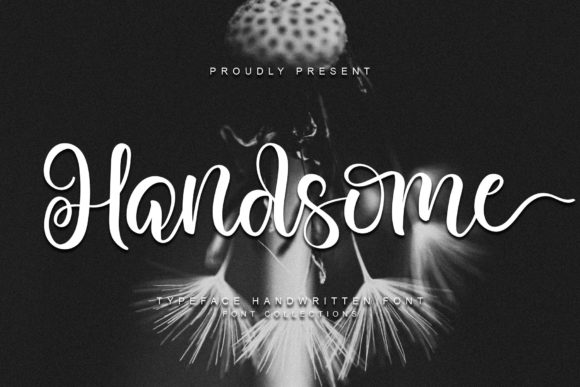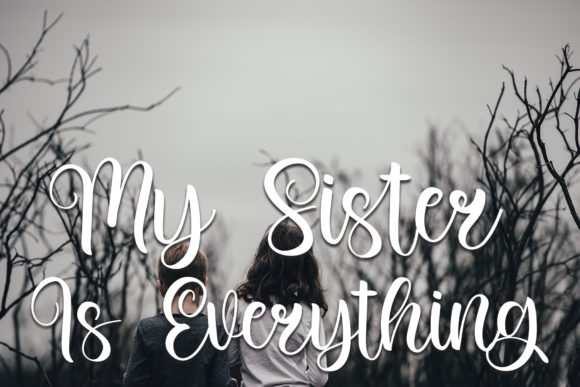
About Handsome Font
“Handsome” is a stunning and playful script font that exudes a sense of beauty and charm. The font’s whimsical style, characterized by its smooth and elegant curves, makes it a fantastic choice for fashion branding, editorial designs, and various creative projects.
The name “Handsome” suggests a sense of sophistication and attractiveness, which aligns well with the font’s design. Its flowing and well-crafted characters add a touch of elegance to any project you choose to incorporate it into. The font’s versatility allows it to shine in a variety of contexts, from logo design and branding to fashion-related materials and editorial layouts.
With its unique and eye-catching appearance, “Handsome” stands out as a font that captures attention and leaves a lasting impression. Its playful curves and graceful strokes add a sense of movement and life to your designs, making them more engaging and visually appealing. Whether you’re creating a trendy fashion brand or designing an editorial spread, “Handsome” can contribute to a polished and stylish aesthetic.
As you work with “Handsome,” you can confidently experiment with its various glyphs and swashes to customize and enhance your designs. This font’s ability to convey a sense of beauty, whimsy, and sophistication makes it a valuable tool for expressing creativity and creating memorable visual experiences.